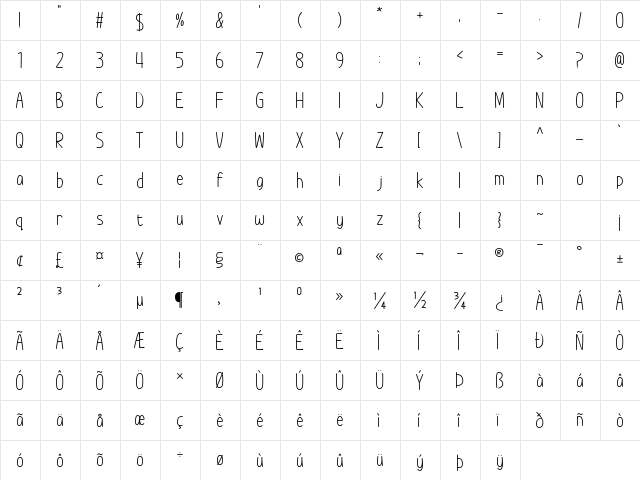
Im Wunderland Spaced Out
Design Context for Im Wunderland Typeface
Im Wunderland offers clean, dependable letterforms without strong stylistic allegiance, making it a practical choice for designers who need flexibility.
Pro Tip: Pair Im Wunderland with a font of contrasting weight or personality to build a more expressive typographic hierarchy.